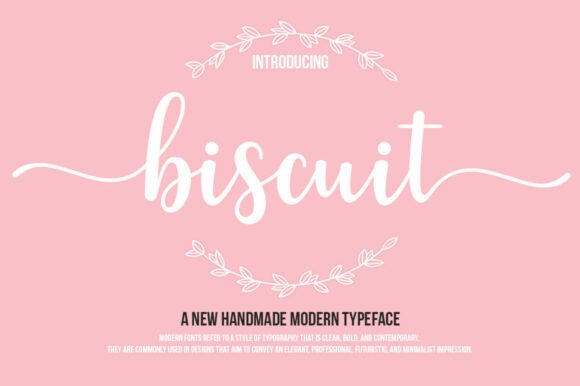
I still remember the countless hours I spent scrolling through font libraries, searching for the perfect typeface for a client’s wedding invitation project. The client wanted something elegant, yet modern; something that would make their special day truly unforgettable. As I sifted through page after page of fonts, I began to feel like I was stuck in a never-ending loop of sameness. That was when I stumbled upon Biscuit Script – a game-changing typeface that has since become a staple in my design toolkit.
What Makes Biscuit Script So Special?
Biscuit Script is a beautiful fusion of contemporary calligraphy and everyday elegance. This stunning typeface boasts an understated simplicity that belies its sophisticated charm, making it perfect for a wide range of design applications. From logo creations and product packaging to romantic wedding invites and branding, Biscuit Script adds a touch of luxury and refinement to any project.
My Honest Review of Biscuit Script
So, what do I love about Biscuit Script? Here are a few things that make it stand out:
• ✨ Elegant swashes: The ornate swashes in Biscuit Script add a level of sophistication and flair to any design.
• ✅ Versatility: This typeface can be used for everything from headlines and signage to labels and signatures.
• 💫 Unique character: Biscuit Script has a distinctive personality that sets it apart from other typefaces.
Of course, no typeface is perfect, and Biscuit Script has a few minor quirks:
• 🤔 Limited use in body text: While Biscuit Script is stunning in headlines and titles, it may not be the best choice for body text due to its ornate nature.
• ⚠️ Requires careful pairing: Biscuit Script can be paired with a variety of fonts, but it requires some care to ensure that the pairing works well.
The Story Behind Biscuit Script
Biscuit Script was designed with the intention of creating a typeface that would bring a touch of elegance and sophistication to any design project. The designer, inspired by the art of calligraphy and the beauty of handwritten scripts, set out to create a font that would be both modern and timeless. Through careful attention to detail and a passion for typography, Biscuit Script was born – a font that is both versatile and visually striking.
What is Biscuit Script? Biscuit Script is a modern script font that combines contemporary calligraphy with everyday elegance.
What can I use Biscuit Script for? Biscuit Script is perfect for logo creations, product packaging, wedding invites, branding, headlines, and signage.
Can I use Biscuit Script for body text? While Biscuit Script is stunning in headlines and titles, it may not be the best choice for body text due to its ornate nature.
Is Biscuit Script easy to pair with other fonts? Biscuit Script can be paired with a variety of fonts, but it requires some care to ensure that the pairing works well.